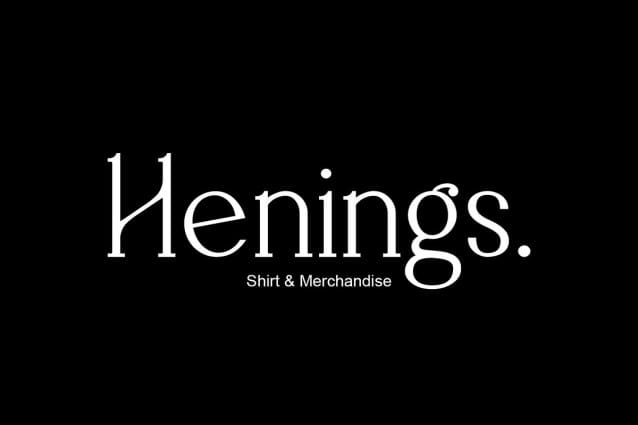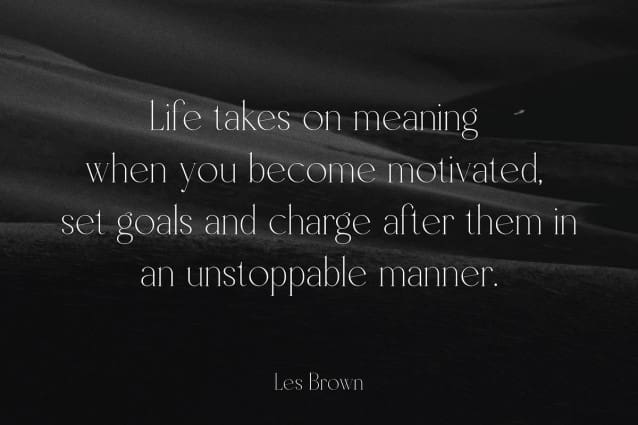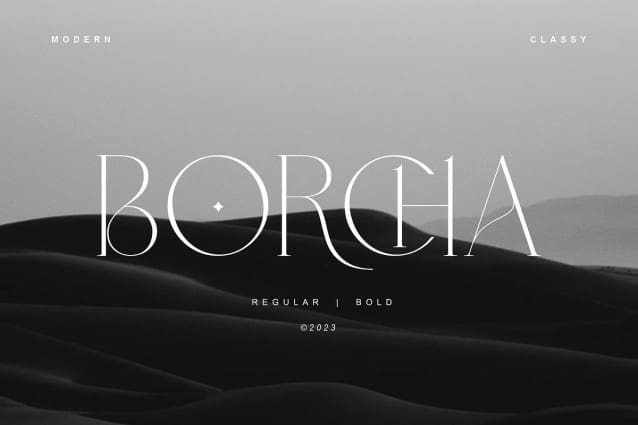
Borcha Font
Borcha Font, this font has an attractive style as well as elegant. In addition, this font is also equipped with several ligature features, stylistic alternate and stylistic set so that it can be the best work in each of your work. This font can be used to create letters, advertisements, logos, banners, web, and everything else.